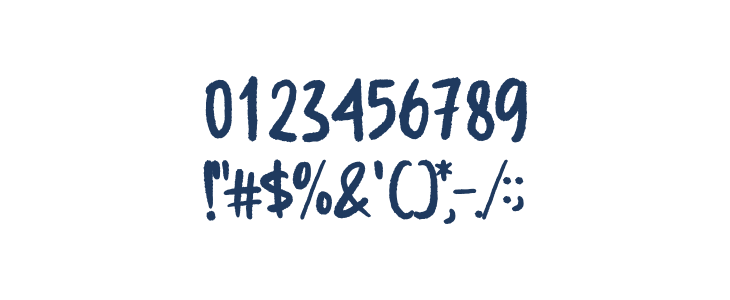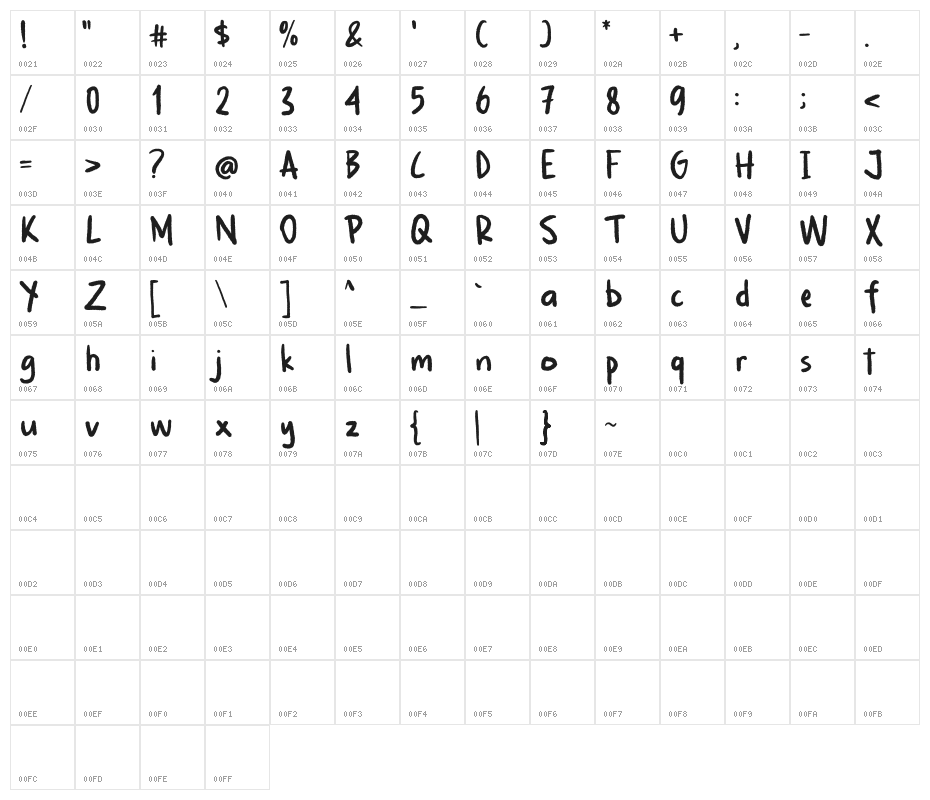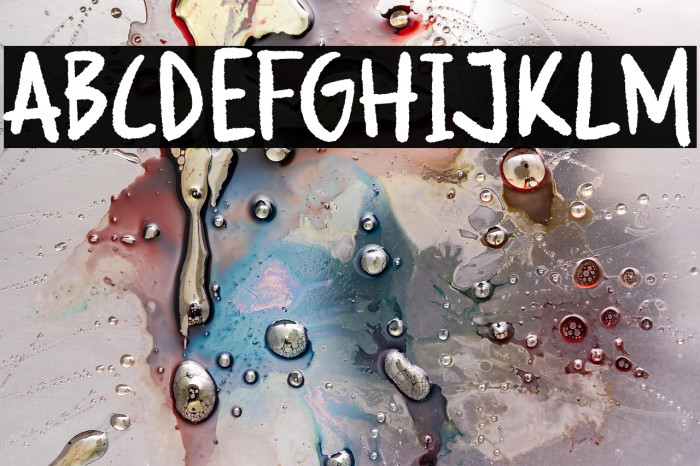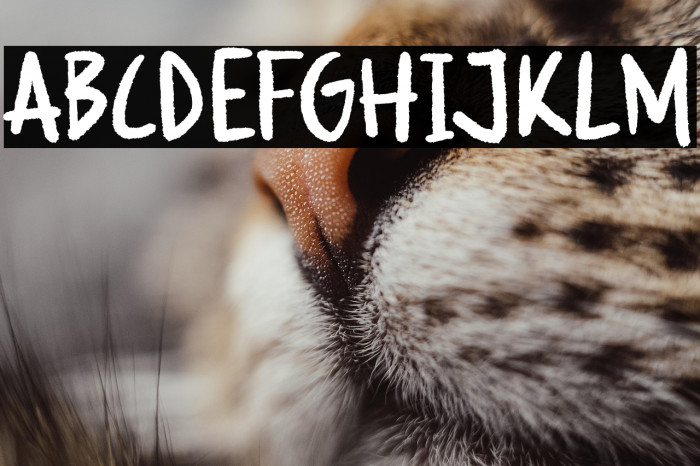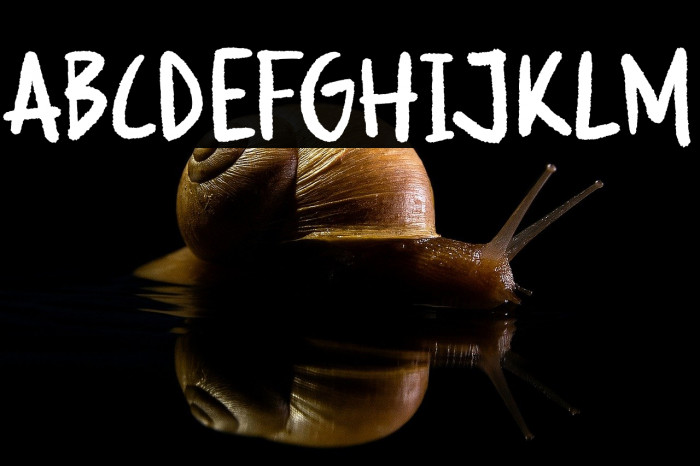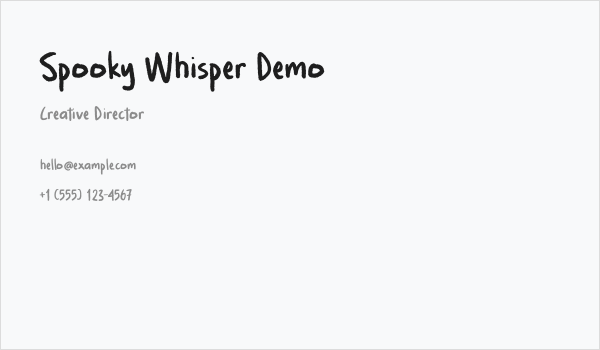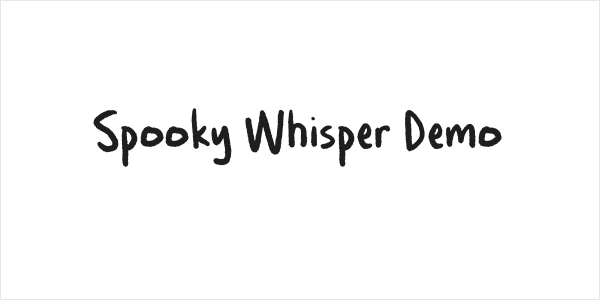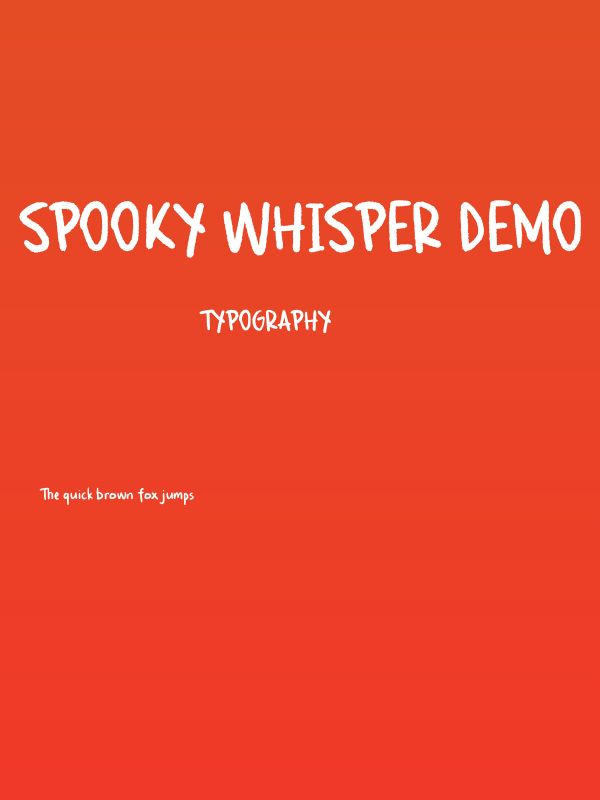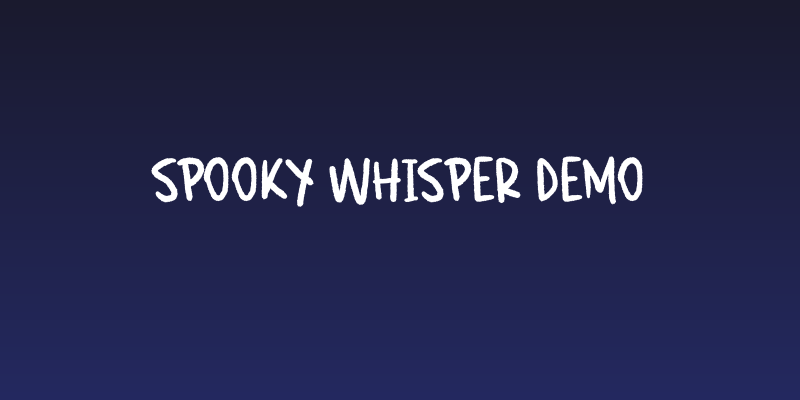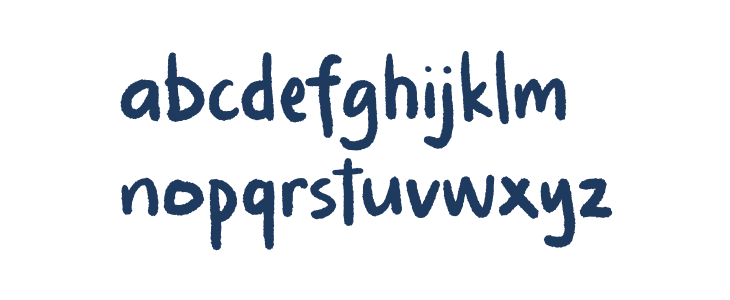
Spooky Whisper Demo Font
Spooky Whisper Demo Description
This font exudes a playful and slightly eerie vibe, characterized by its hand-drawn, uneven strokes that give it a whimsical and spooky appearance. The letters are bold and slightly irregular, with a casual, handwritten style that suggests a sense of movement and energy. The uppercase and lowercase letters maintain a consistent style, while the numbers and special characters complement the overall design. This font is perfect for projects that require a touch of personality and creativity, such as Halloween-themed designs, children's book covers, or playful branding materials.
| Proposed Projects | Ideal for Halloween designs, children's books, playful branding, and creative posters. |